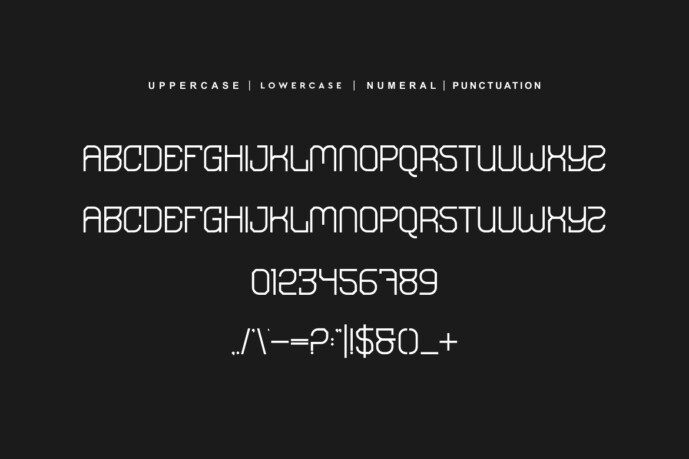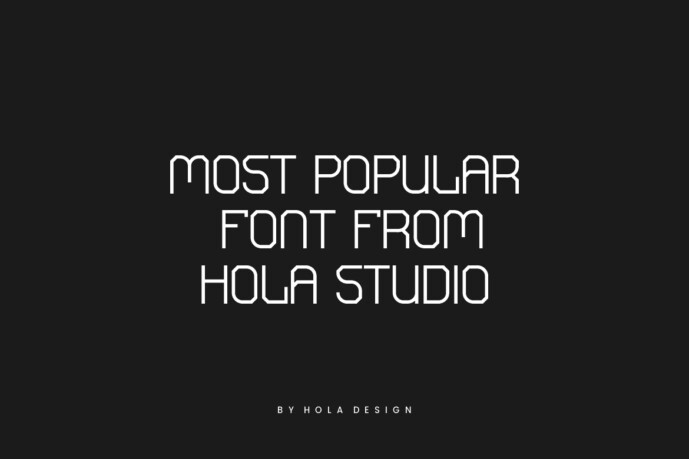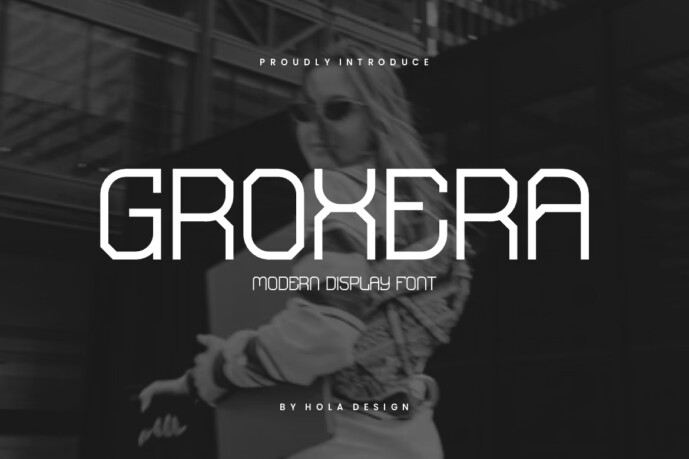
Groxera Font
Groxera font is unique. Ready to be used for your designs, such as labeling, movie scene, poster, movie title, concerts, album covers, logos and much more.